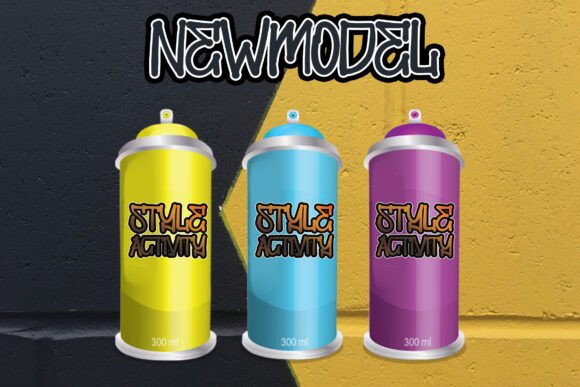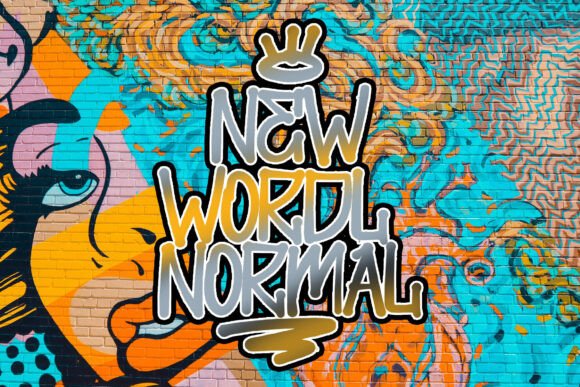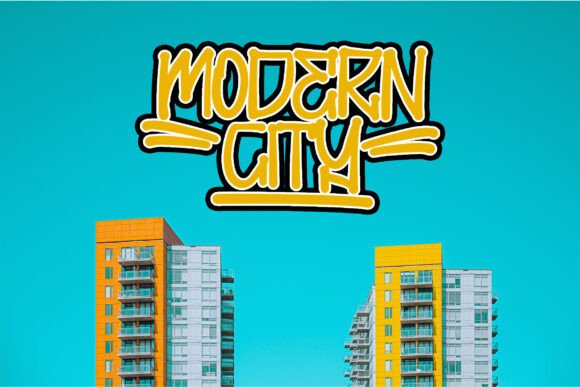
Introduction to Merdie Font
Have you ever been stuck in a design rut, searching for that one font that will elevate your creative project and make it truly stand out? I know I have. Remember that moment when you finally found the perfect font to match your vision, and your design came to life? It’s a feeling of pure excitement and satisfaction. That’s exactly what I want to share with you today – a font that has been a game-changer for many designers: the Merdie Font.
This bold and expressive graffiti font is more than just a design resource – it’s a statement piece. With its unique monoline hand-brush style, the Merdie Font brings a high-quality, artistic touch to any project. Whether you’re working on a branding project, creating posters, or designing a creative display, this font is sure to make your graphics shine with a stylish flair.
Key Features of Merdie Font
- High-quality, professional font perfect for creative projects and design resources.
- Designed to work seamlessly with transparent backgrounds, allowing for versatile and modern design applications.
- Unique characteristics include elegant, cursive script and modern, sans-serif elements, making it suitable for a variety of design projects.
- Perfect for use in digital design, including websites, social media, and other online creative projects.
Honest Review: Merdie Font
Merdie Font is a high-quality design resource that has caught my attention recently. It’s a free download, which is always a bonus, and it offers a transparent background, making it perfect for creative projects where layering is essential.
- ✨ Beautifully designed characters with a unique style
- ✨ Highly versatile, suitable for a wide range of creative projects
- ⚠️ Limited character set, which may not be suitable for complex or professional projects
Overall, I’m impressed with Merdie Font’s design and versatility. While it may not be perfect for every project, it’s a great resource to have in your toolkit, especially for free. With a little creativity, you can use it to add a unique touch to your design work.
Tips for Getting the Most Out of Merdie Font
To get the most out of Merdie Font, use it with a transparent background to create a clean and modern design. Experiment with different font sizes and colors to find the perfect combination for your creative project. You can also use Merdie Font with other design elements, such as images and graphics, to create a visually appealing design.
Merdie Font is suitable for a wide range of creative projects, including logos, brochures, and website design. Its high quality and unique design make it an excellent choice for designers looking to add a touch of elegance to their projects. With a free download available, Merdie Font is a valuable design resource for designers of all levels.